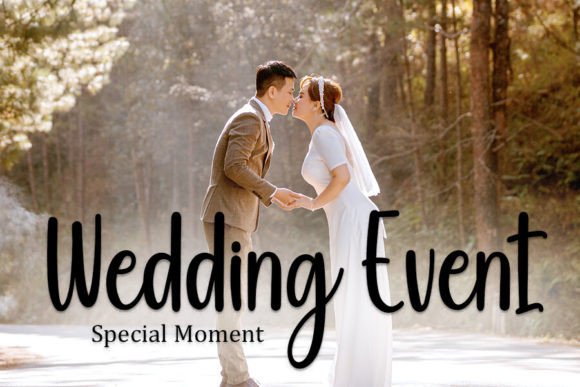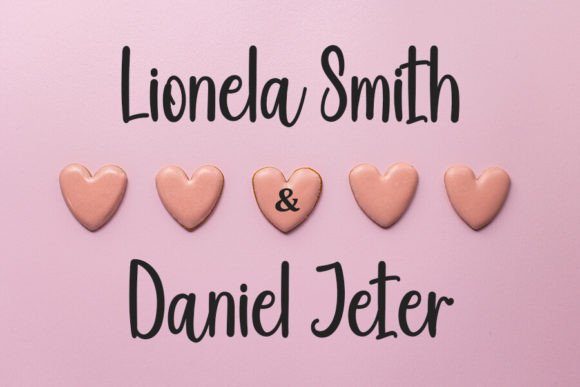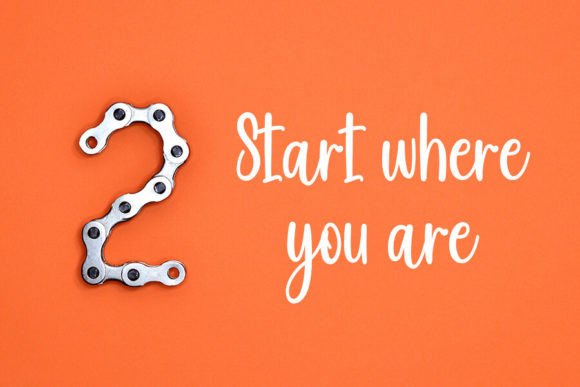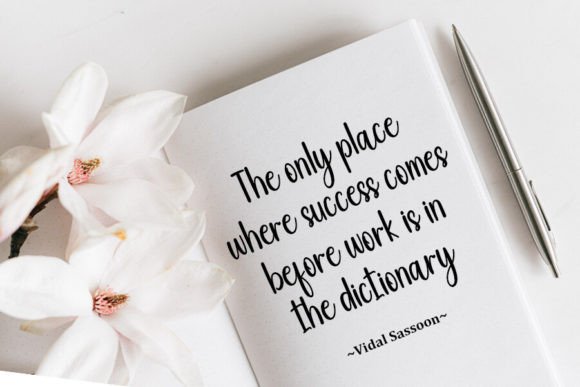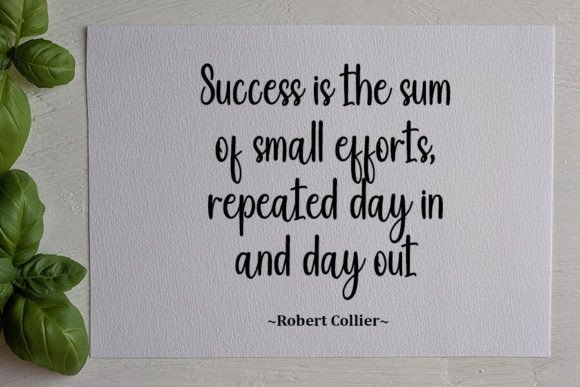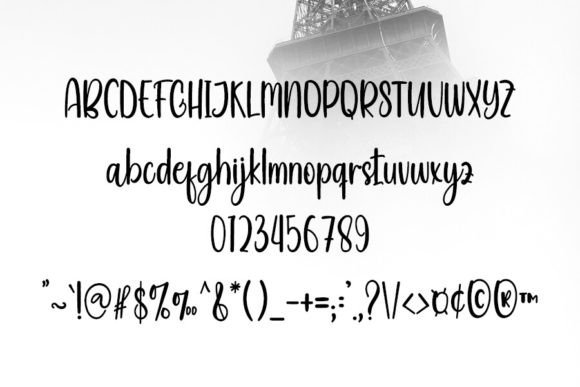
Introducing Family Christmas Font: A Timeless Classic for Your Holiday Projects
Are you looking for a font that captures the essence of the holiday season? Do you want to add a touch of elegance and sophistication to your Christmas-themed projects? Look no further than the Family Christmas Font, a stylish handwritten font that is sure to become a timeless classic.
A Contemporary Take on Classic Calligraphy
Inspired by traditional calligraphy, Family Christmas Font brings a contemporary atmosphere to your designs. With its impeccable form and balanced style, this font is perfect for creating stunning holiday-themed projects that will leave a lasting impression. Whether you’re a designer, crafter, or DIY enthusiast, Family Christmas Font is the perfect addition to your font collection.
Key Features of Family Christmas Font
- PUA Encoded: Family Christmas Font is PUA encoded, which means you can access all of the amazing glyphs and ligatures with ease. This makes it simple to use and customize the font to suit your needs.
- Stylish Handwritten Style: With its stylish handwritten style, Family Christmas Font adds a touch of elegance and sophistication to any project.
- Balanced and Varied: The font is carefully designed to be balanced and varied, ensuring that your projects look beautiful and professional.
- Contemporary Atmosphere: Family Christmas Font brings a contemporary atmosphere to your designs, making it perfect for modern holiday-themed projects.
Family Christmas Font is perfect for designers and crafters who want to create stunning holiday-themed projects. With its versatility and ease of use, this font can be used for a wide range of projects, including:
- Holiday Cards and Invitations: Create beautiful holiday cards and invitations that will impress your friends and family.
- Christmas Decorations: Use Family Christmas Font to create stunning Christmas decorations, such as garlands, banners, and signs.
- Digital Projects: Add a touch of elegance to your digital projects, such as holiday-themed social media graphics and blog posts.
- Crafting Projects: Use Family Christmas Font to create beautiful crafting projects, such as handmade cards, gift tags, and scrapbooking pages.
Tips for Using Family Christmas Font
- Experiment with Different Sizes: Family Christmas Font looks great in a variety of sizes, so don’t be afraid to experiment to find the perfect size for your project.
- Pair with Other Fonts: Pair Family Christmas Font with other fonts to create a unique and interesting look.
- Use the Glyphs and Ligatures: Take advantage of the PUA encoding and use the glyphs and ligatures to add a touch of elegance to your projects.